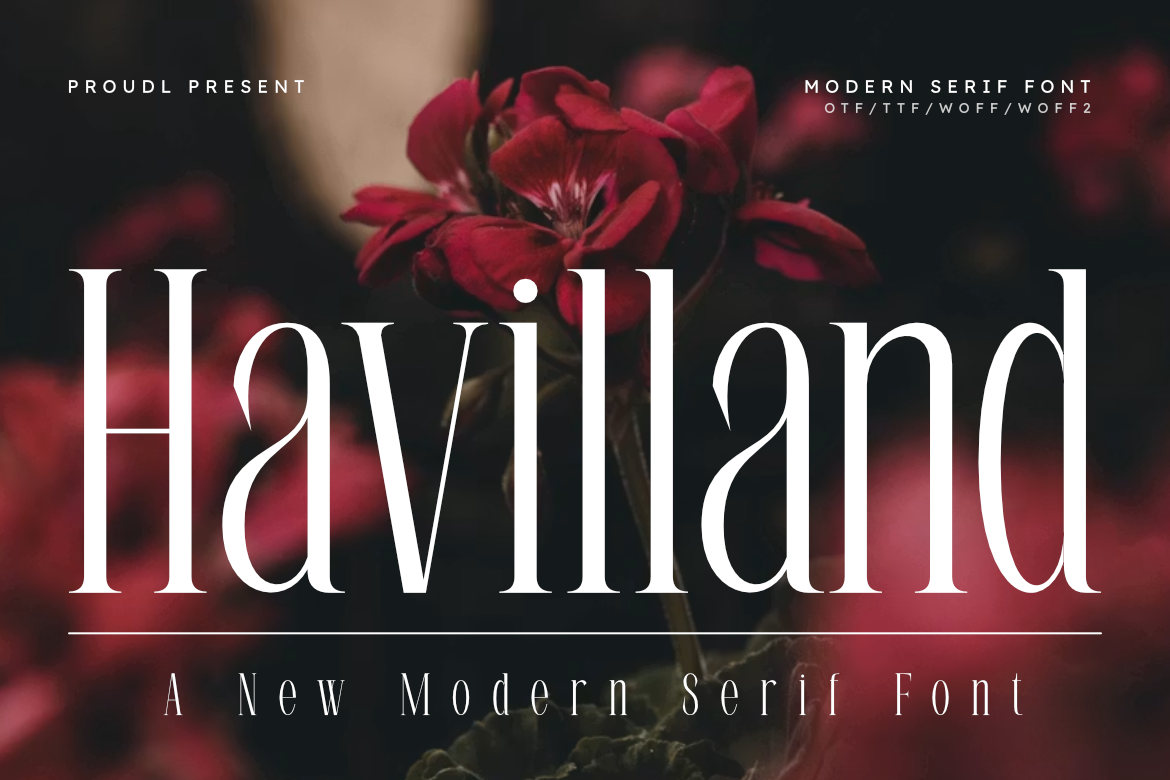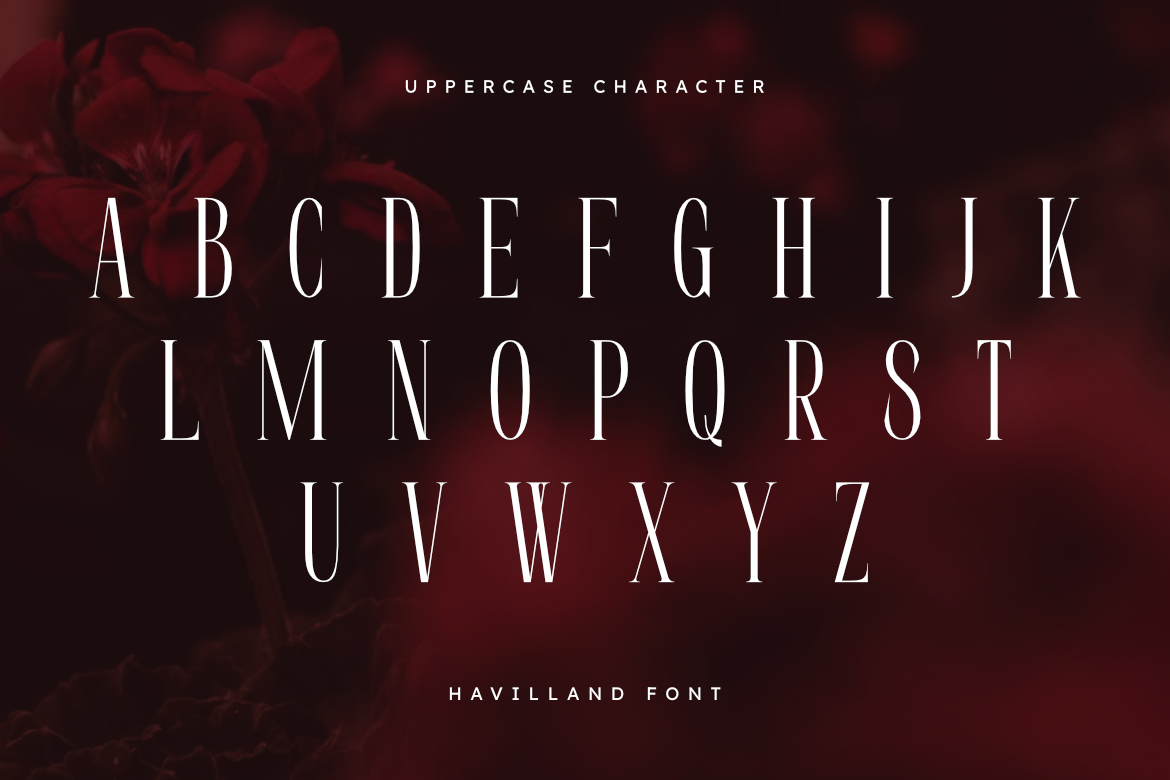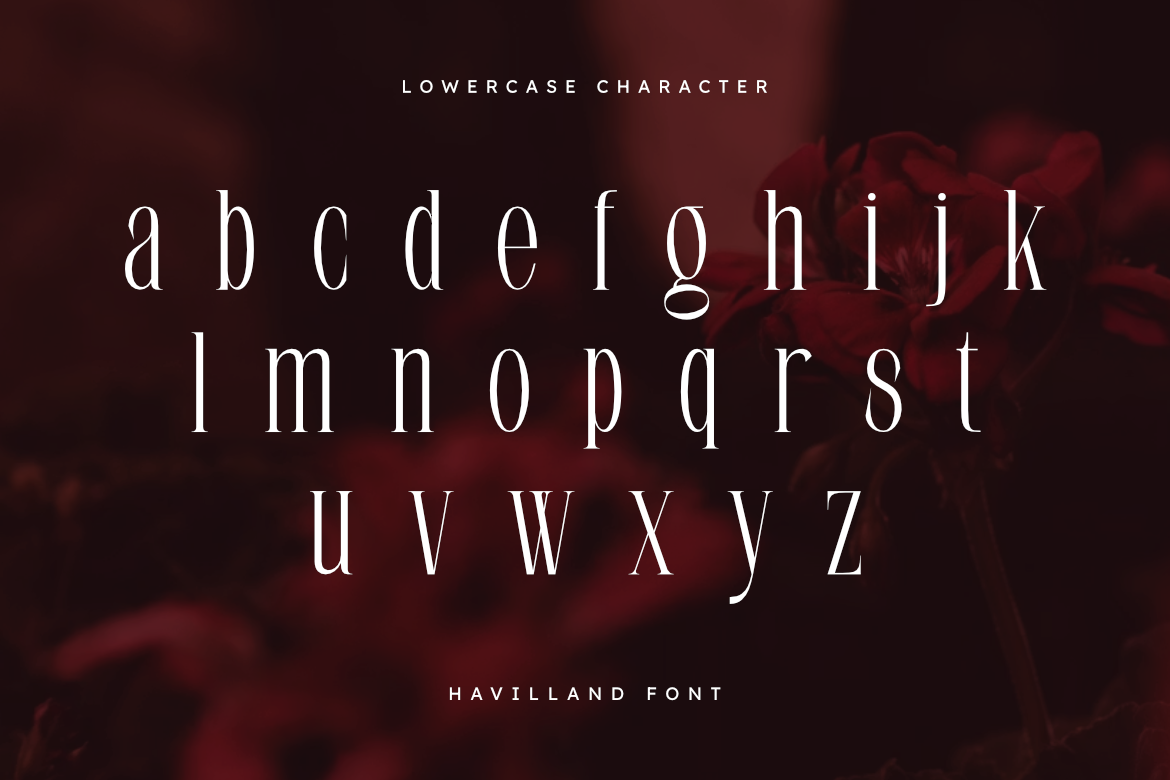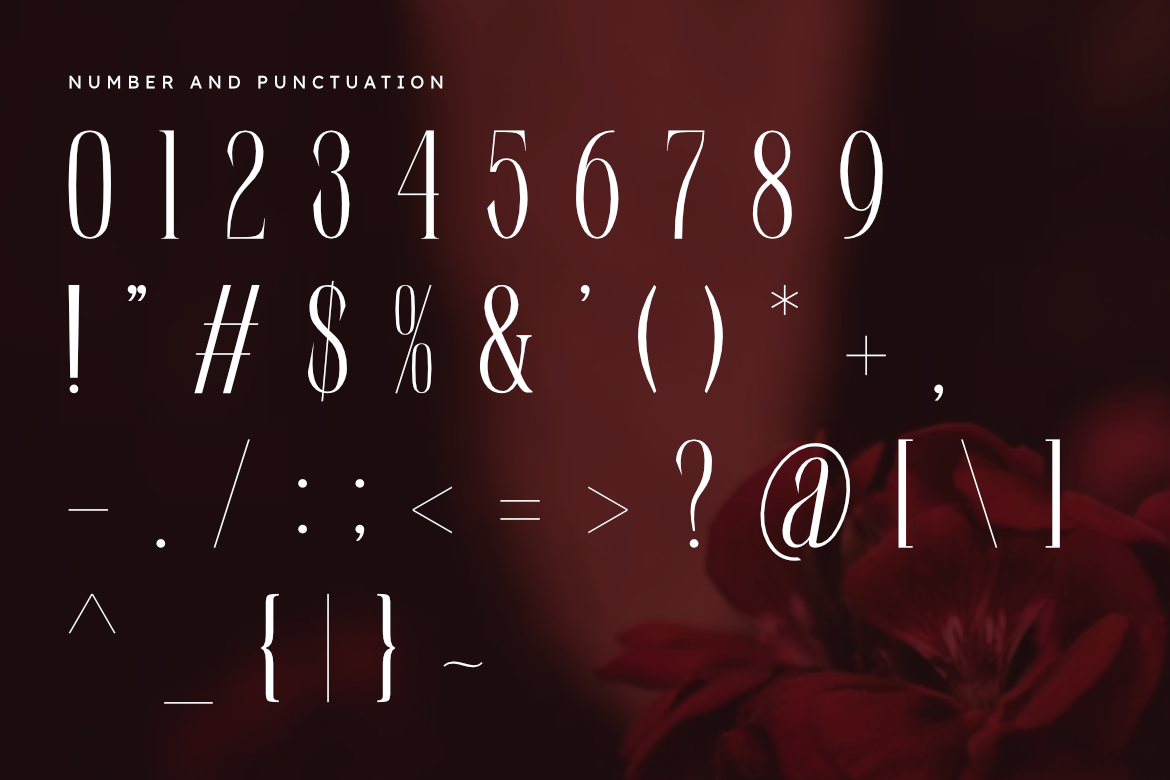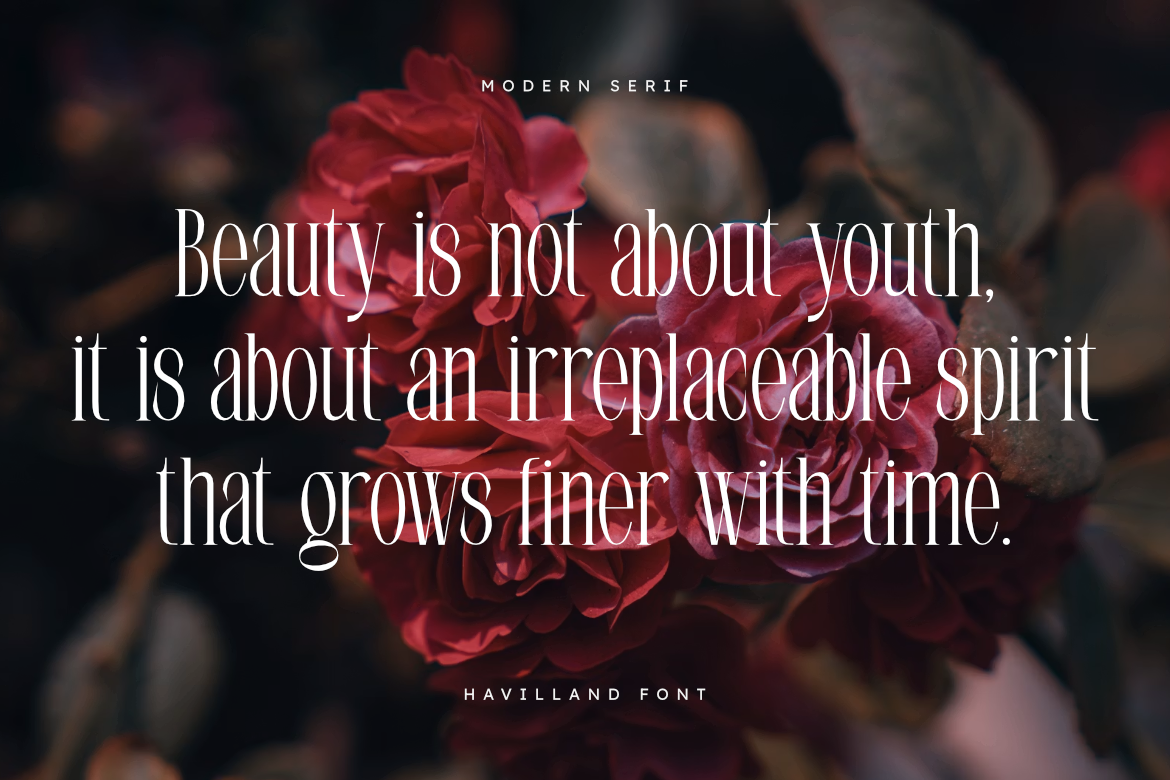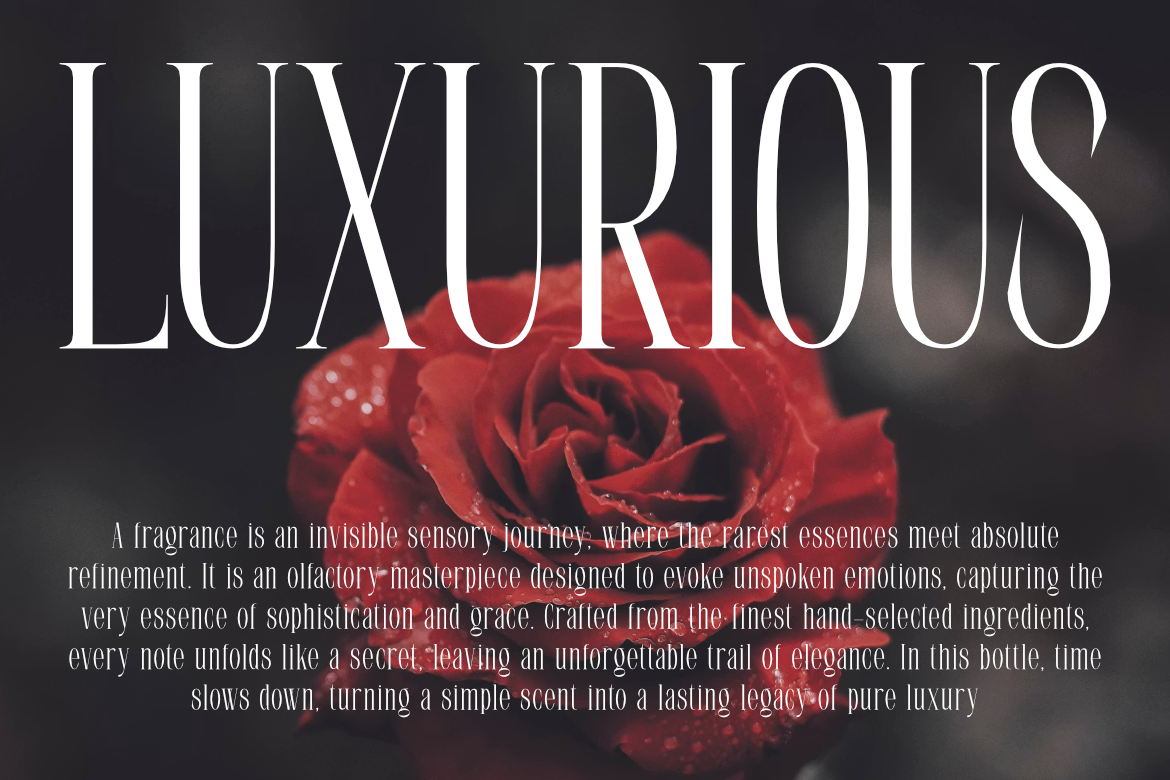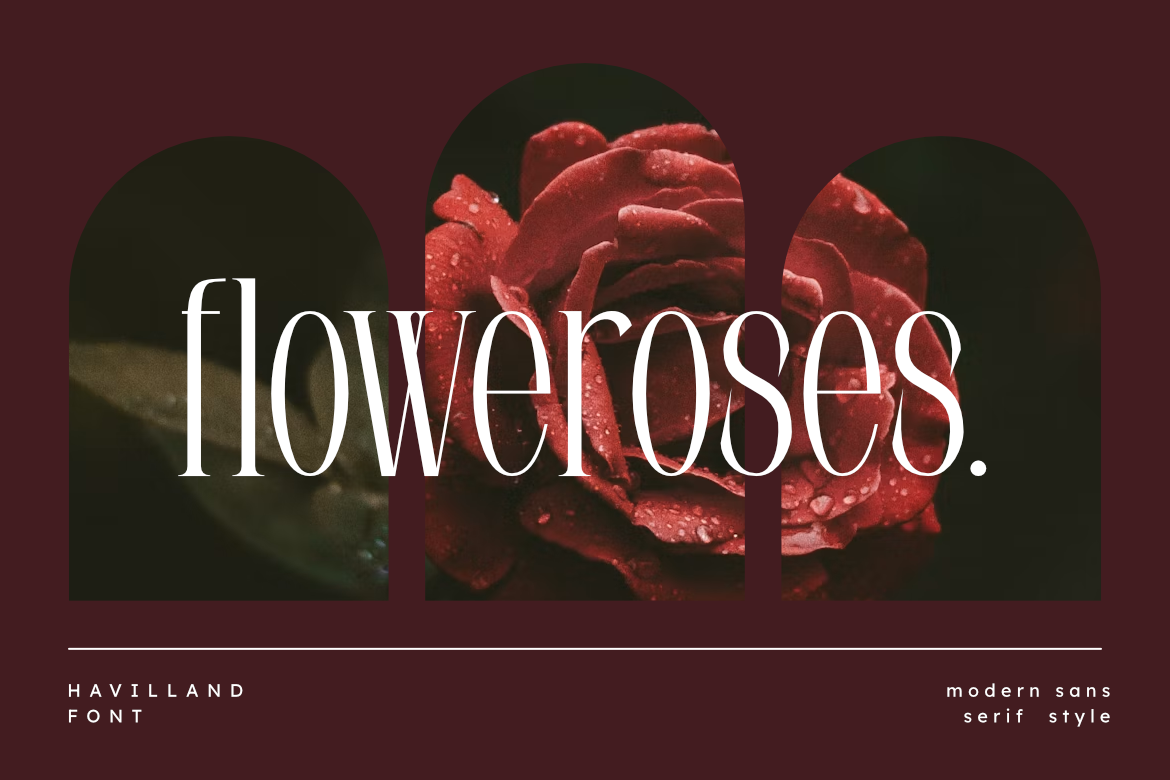
Havilland - Modern Serif Font
Havilland is a sophisticated modern serif font designed to bring timeless elegance and high-end professional style to your creative projects.
This typeface features beautifully balanced letterforms with clean lines and refined contrast, making it exceptionally versatile for luxury visual identities. Its sleek structure and high-impact design ensure that each character flows with grace, delivering a polished look that perfectly captures the essence of contemporary minimalism and editorial sophistication.
Whether you are crafting a brand identity for a premium startup, designing sleek corporate materials, or creating editorial layouts for fashion magazines, Havilland ensures your work exudes professionalism and style. It is ideal for logos, luxury packaging, websites, and high-end promotional presentations.
Designed for modern creative applications, Havilland empowers you to communicate a polished, upscale aesthetic that leaves a lasting impression across both print and digital platforms.
• Modern, elegant, and sophisticated serif style.
• Refined high-contrast letterforms with professional finishing.
• Perfect for high-end branding, luxury logos, and editorial design.
• Designed for maximum visual impact in headlines and display use.